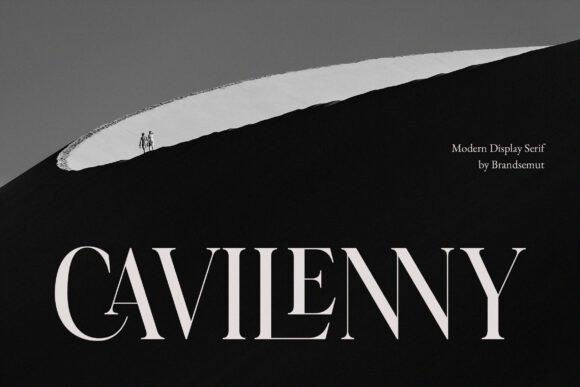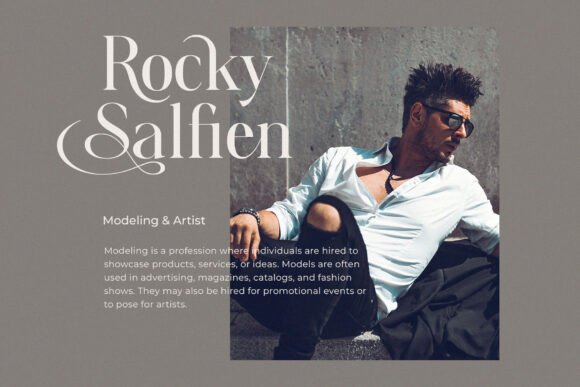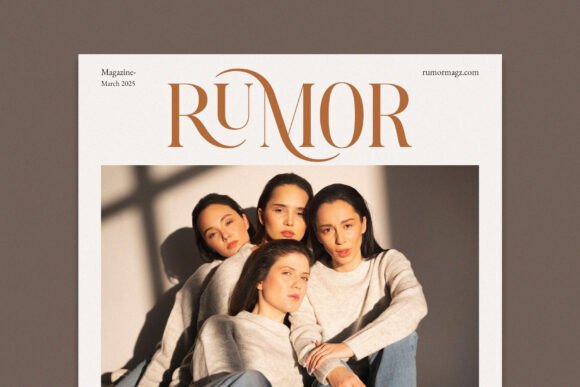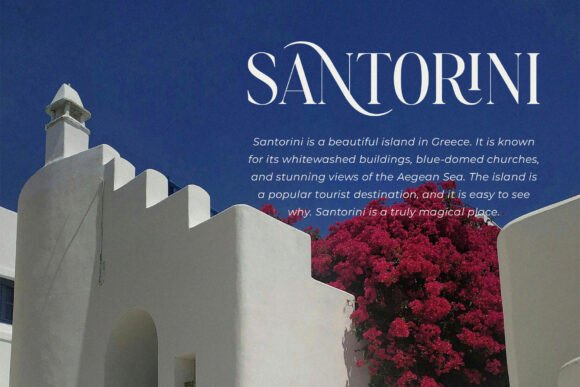
Cavilenny Font: Modern Serif Typography for Elegant Logo Design
About the Cavilenny Font
The Cavilenny Font is here to transform your projects with its distinctive character and style. Introducing Cavilenny Modern Display Serif Font.
Cavilenny is a modern and classy typeface, best used as a display for headings, logos, branding, magazines, product packaging, and invitations. Cavilenny comes with clean lines and smooth curves, giving any project an extra touch of class.
Cavilenny Font Usage Examples
Cavilenny Font Example